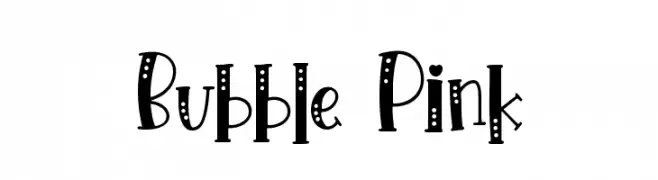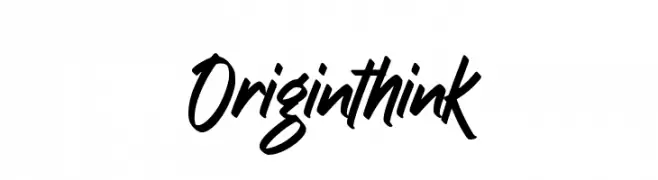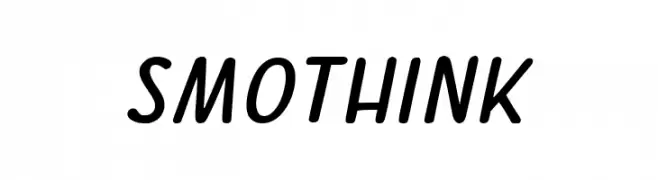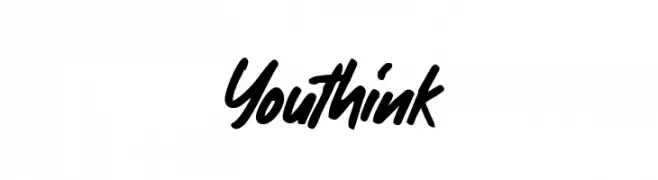
A bold, geometric font with a modern and clean aesthetic.
A playful, bold font with rounded, thick letterforms and a friendly vibe.
A bold, angular font with a geometric and modern style.
A bold, brush-style font with dynamic and energetic strokes.
A playful, slanted, and layered font with a dynamic, three-dimensional appearance.
A decorative, multi-layered outlined font with a geometric and modern style.
A graceful, handwritten script font with elegant, flowing strokes.
A whimsical and elegant script font with flowing, interconnected letterforms.
A bold, graffiti-style font with sharp angles and thick strokes.
A casual, elegant handwritten font with fluid, connected letters.
A playful, hand-drawn font with a whimsical and informal style.
A flowing, cursive font with elegant and artistic flair.
A flowing, elegant cursive font with smooth, connected letters.
An elegant script font with flowing, cursive style and high contrast strokes.
A playful, bold handwritten font with rounded edges and thick strokes.
A playful, handwritten font with rounded, bold letterforms.
A playful, handwritten font with tall, narrow letters and a casual style.
A bold, punk-inspired font with jagged, dynamic characters.
A playful, whimsical handwritten font with flowing, interconnected letterforms.
A bold, italic font with sharp, angular edges and a modern, sporty style.
A bold, geometric font with strong, angular lines and a blocky appearance.
A playful, dynamic font blending script and sans-serif styles with a handwritten feel.
A bold, geometric font with a modern, futuristic style.
A bold, playful font with rounded, whimsical characters.
A graceful and fluid script font with elegant, connected letters.
A playful, modern script font with a handwritten feel.
A playful, hand-drawn font with bold, rounded strokes and a whimsical style.
A dynamic and fluid script font with elegant, flowing letterforms.
A bold, brush-style font with dynamic, hand-painted strokes.
A bold, italicized handwritten font with fluid strokes and dynamic style.